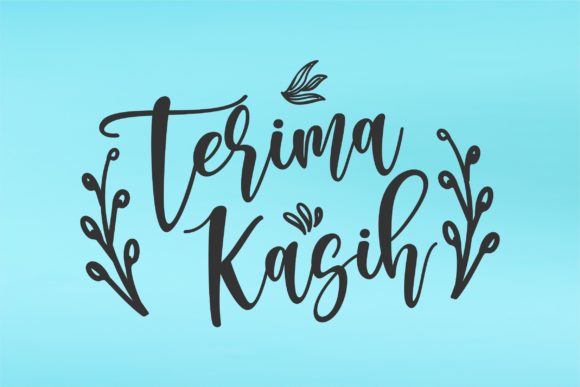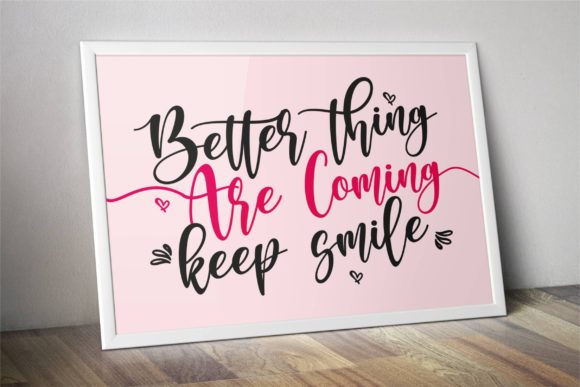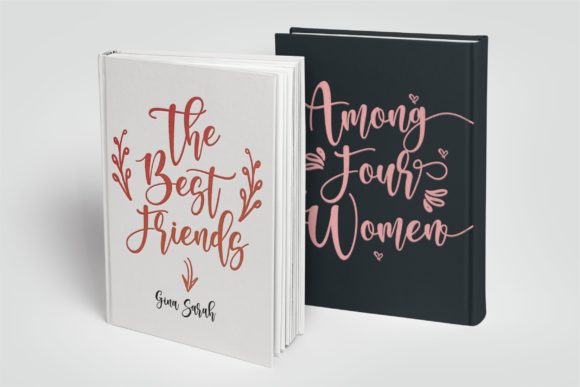
About Southmore Font
Southmore is a sweet and cursive handwritten font. This gentle font will look gorgeous on a variety of design ideas. It will add a joyful and romantic touch to each of your projects!